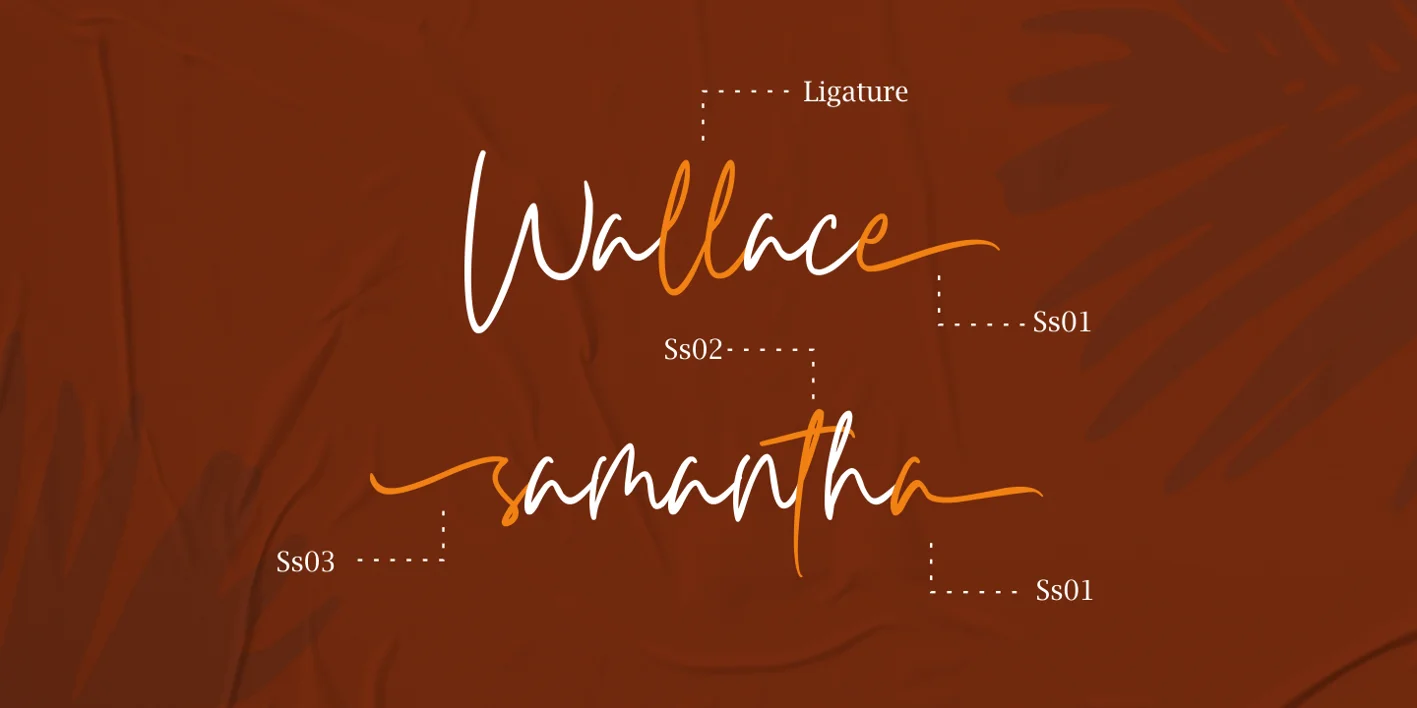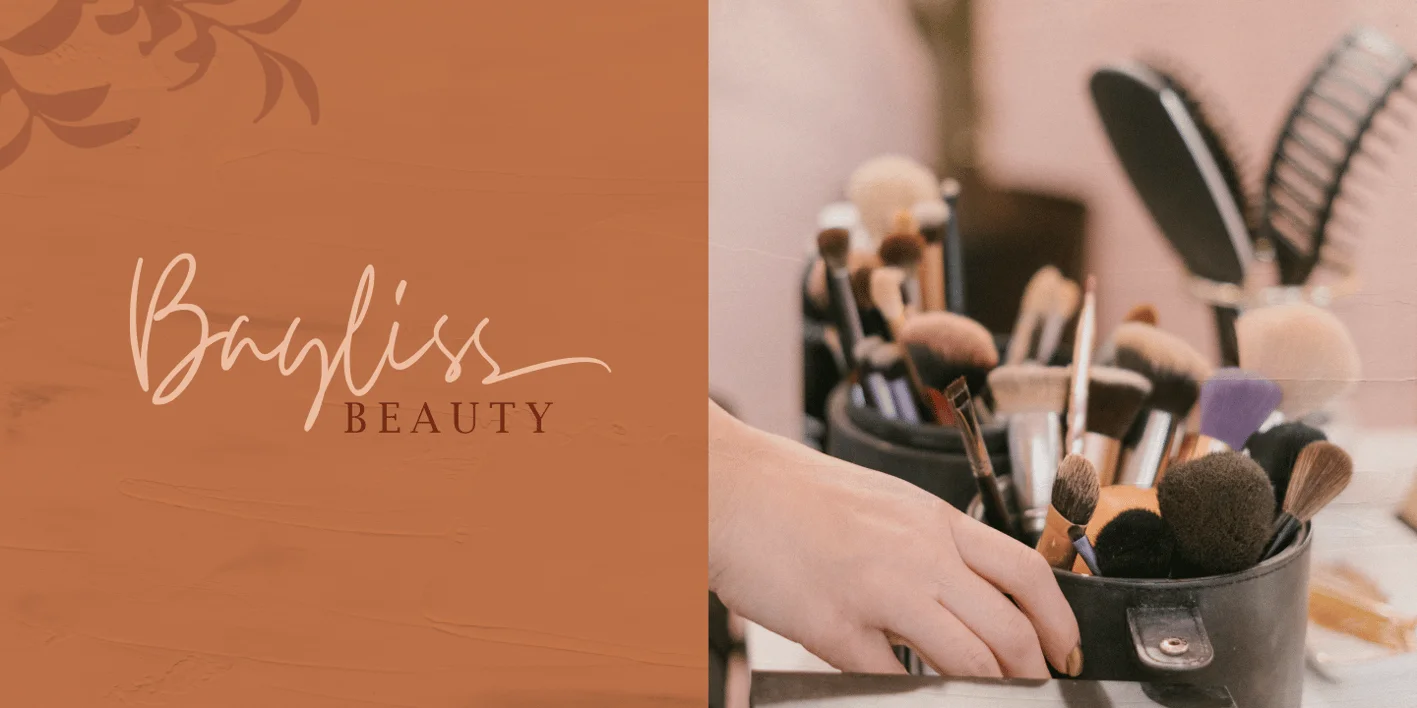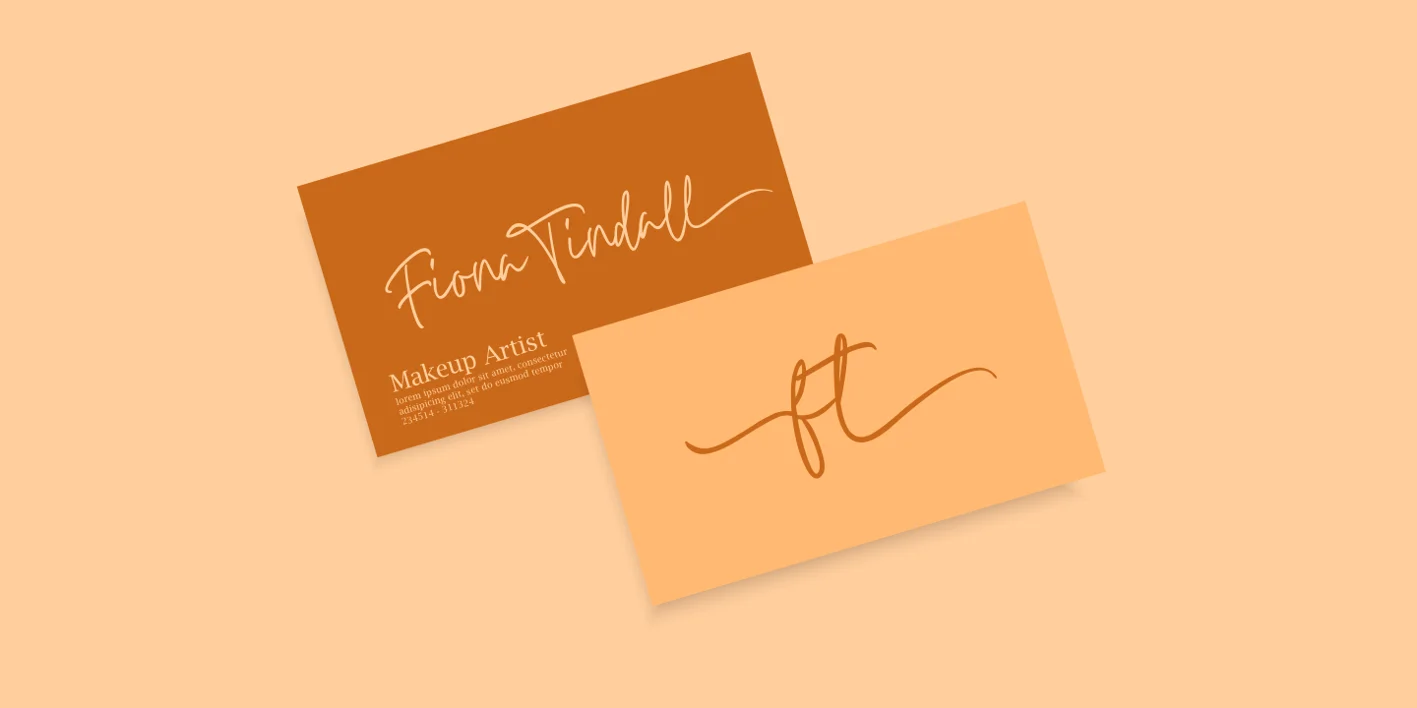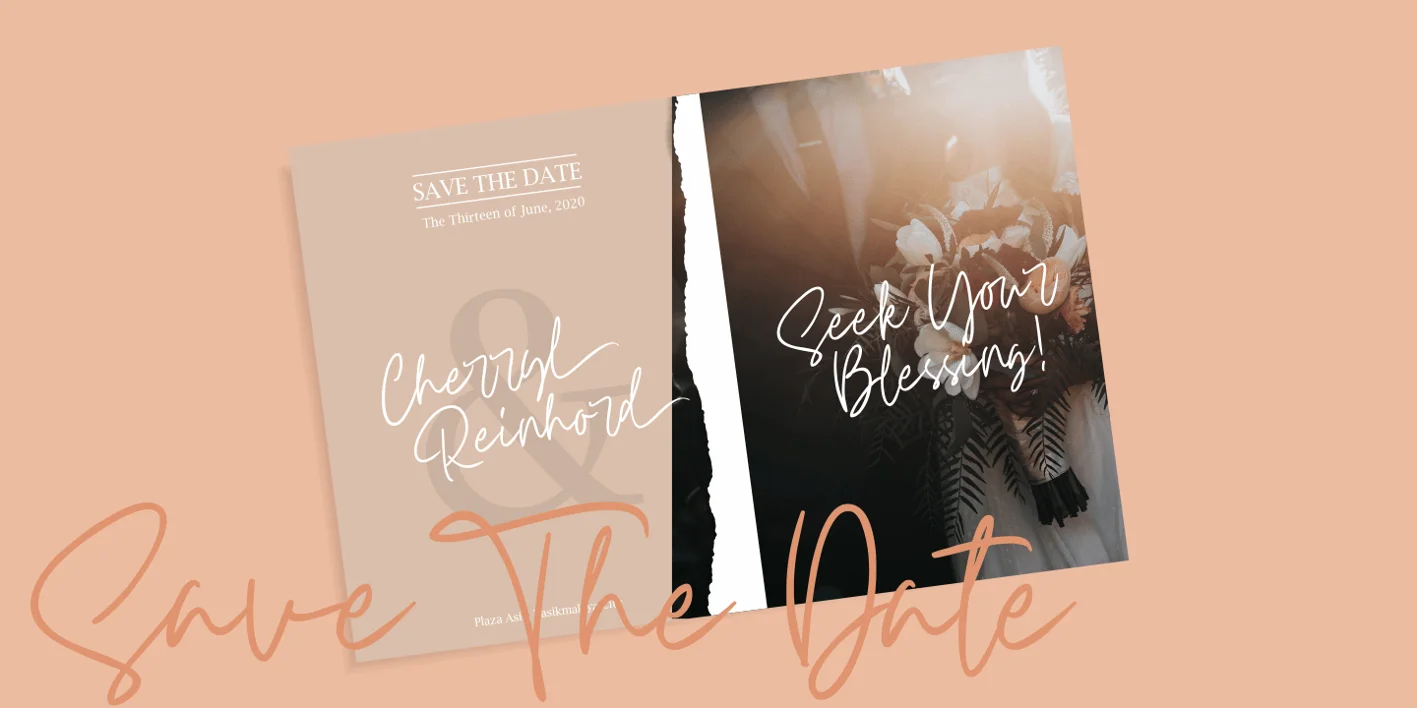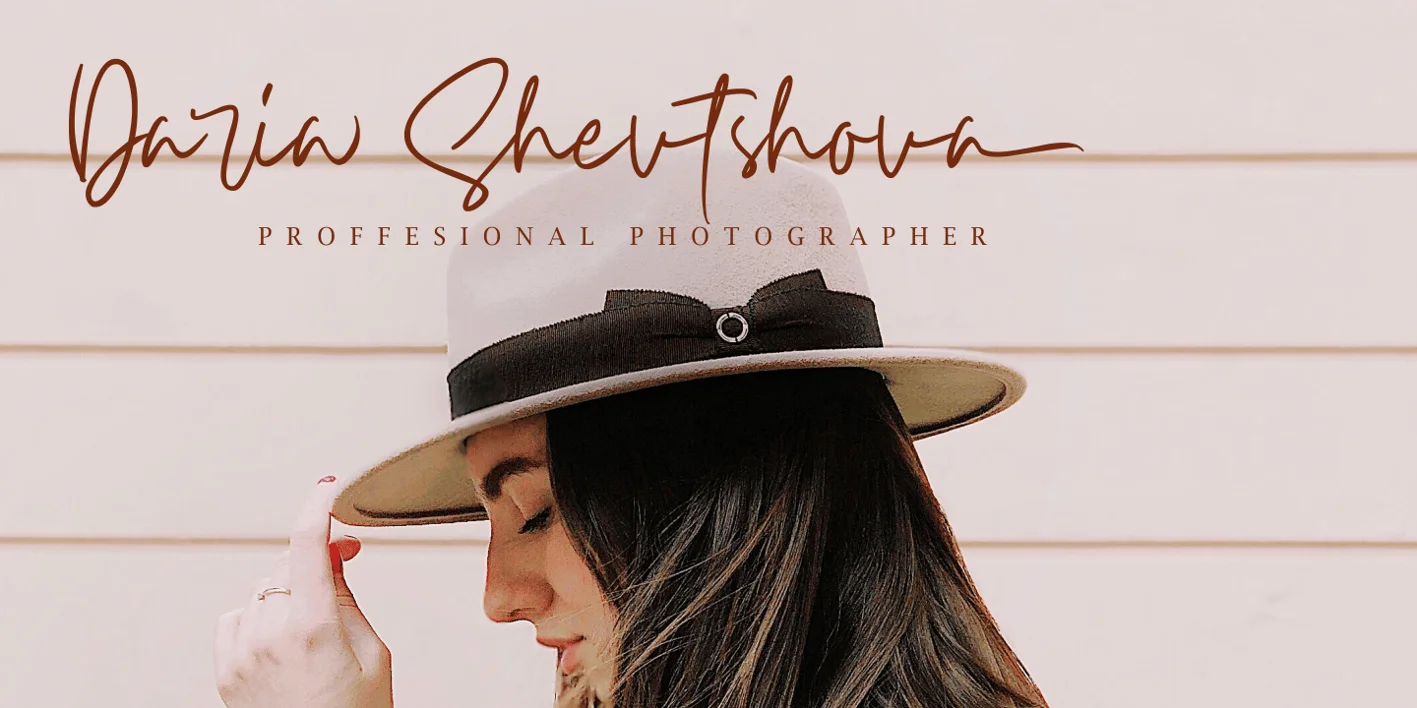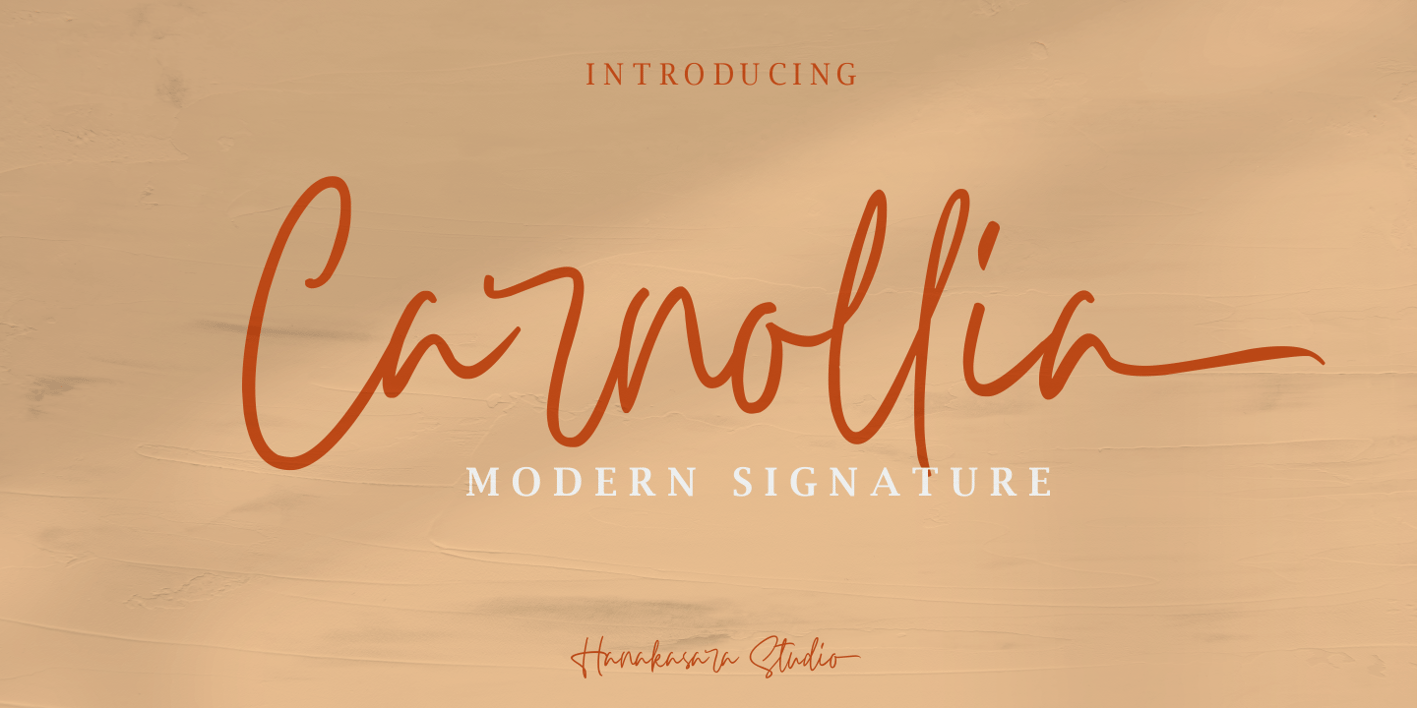
Carnollia Signature Font
The Carnollia Signature Font excels in vibrant design applications including floral business branding, garden center logos, botanical product packaging, nature-inspired wedding invitations, organic beauty brands, artistic portfolios, blooming greeting cards, seasonal social media graphics, natural lifestyle branding, and flourishing marketing materials. Its botanical script style makes it perfect for projects requiring natural elegance that communicates growth and establishes organic connections with audiences seeking authentic nature experiences and blossoming sophistication.
What makes the Carnollia Signature Font genuinely exciting is its exceptional ability to capture the delicate beauty and organic flow of blooming flowers through gracefully crafted letterforms. The font features flowing, petal-inspired strokes with natural flourishes and botanical proportions that create a distinctly floral appearance. Each character displays remarkable attention to organic detail with gentle curves, flowering connections, and natural spacing that give text a blooming, hand-lettered quality. The font's botanical character and flourishing rhythm create an atmosphere of natural beauty while maintaining elegant sophistication and fresh appeal.
The Carnollia Signature Font family typically includes regular weight with comprehensive character sets, featuring uppercase and lowercase letters, numerals, punctuation, and international glyphs. The typeface often incorporates stylistic alternates, contextual ligatures, and floral swashes that enhance its signature naturalism. These additional elements provide designers with creative options to customize text appearance and achieve more natural-looking botanical handwriting that reflects the font's organic and flourishing character.
This beautiful signature font distinguishes itself through its remarkable balance of natural charm and professional elegance. Unlike rigid digital fonts that lack organic appeal, Carnollia Signature Font embraces the graceful imperfections and natural variations that make botanical elements so captivating. The font's floral character makes it essential for nature-focused brands, organic businesses, and botanical projects where connecting with audiences who appreciate natural beauty and sustainable living is fundamental to building authentic brand relationships.
The Carnollia Signature Font offers designers an exceptional opportunity to incorporate natural elegance into their botanical projects. From organic skincare brands to garden design companies, this font delivers the floral signature aesthetic that resonates with audiences who value natural beauty and sustainable lifestyles. Its blooming appeal ensures your designs communicate organic authenticity while the signature styling adds distinctive personality that reflects natural growth and botanical sophistication in any application requiring nature-inspired typography solutions.